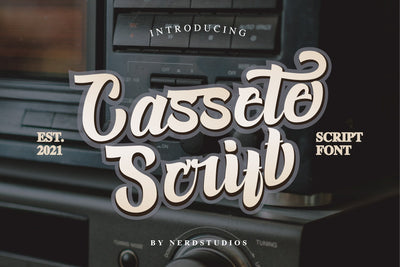
Cassete Script Font
Cassete Script Font-for elegant and futuristic design style with a unique character that can enhance the quality of your designs.
Cassete Script Font– This Font is perfect for designs, logos, social media, brands, advertisements, product designs, handwritten quotes, product packaging, headers, posters, merchandise, and other designs.